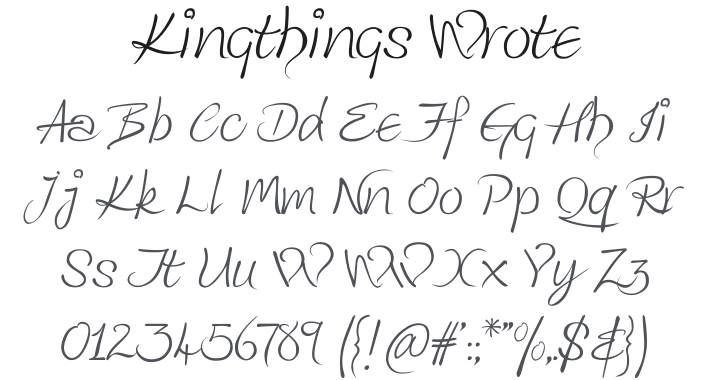
Kingthings Wrote Font
About Kingthings Wrote
After making Kingthings Hand - which was supposed to be informal and flowing - and turned out completely different - they do that, fonts, like wayward children; I wanted to make a font of my handwriting that I could use for notes - I tried once before and came up with Kingthings hand which was far too stiff - I had considerable problems getting this one to work - as ever the more free and flowing a font needs to be, the more formal work it takes to make it useable. I'm still learning.